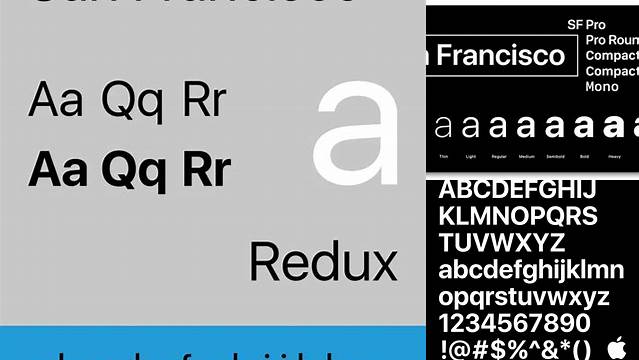
San Francisco Fonts For Architecture: A Comprehensive Guide
Welcome, typography enthusiasts and design aficionados! Let's dive into the fascinating world of San Francisco fonts, exploring their architectural influence and design nuances. We'll unravel the story behind these versatile typefaces, uncovering their origins, characteristics, and applications in architectural design. This guide will not only help you understand these popular fonts better but also equip you with the knowledge to use them effectively in your projects.
The Genesis of San Francisco Fonts: A Blend of Technology and Design
San Francisco fonts didn't just appear overnight; they're the product of meticulous design and technological innovation. Originally created by Apple, these fonts were designed with the user experience in mind, prioritizing readability across various screen sizes and resolutions. The design process involved a deep understanding of how people interact with digital interfaces, and the fonts had to be optimized for clarity on displays of all kinds, from the smallest smartwatches to large desktop monitors. The key was to create typefaces that were both functional and aesthetically pleasing. The fonts' design was not just about aesthetics; they were built to function within the specific constraints of digital displays. Early digital screens had lower resolutions than what we're accustomed to today, so the fonts had to be highly legible even at small sizes. Apple's design team focused on clean lines, open counters (the spaces inside letters like 'a' and 'e'), and a distinctive overall appearance that was instantly recognizable and pleasing to the eye. This careful attention to detail is a core part of the architectural approach to font design, where every element is considered in relation to the whole.
Let's take a peek into what made these fonts special! The design of San Francisco fonts reflects a minimalist yet modern aesthetic, drawing on the principles of both functionality and elegance. The fonts typically feature a geometric structure with clean lines and a balanced weight distribution, ensuring that they maintain legibility across diverse platforms and sizes. Unlike some more ornate or decorative typefaces, San Francisco fonts opt for simplicity, which allows them to seamlessly integrate with a wide range of design styles, including architectural presentations. The overall design philosophy favors a contemporary feel, which makes them a natural fit for modern architecture and design. This is especially true in the context of architectural visualization, where the fonts can be used to enhance the clarity and professionalism of presentations. The designers paid close attention to letterforms to make sure each character was visually harmonious with the others. The aim was to provide visual consistency, making it easier for users to read text quickly and accurately. This attention to detail is critical in the creation of effective design and also makes the fonts a great choice for architectural design documents, ensuring that they are both informative and easy to understand. The developers of San Francisco fonts put a premium on achieving flexibility while still having excellent legibility. They designed the fonts to be scalable, so they would look great on anything from tiny phone screens to large building signs. The fonts' ability to maintain readability in different sizes means they are very well-suited to architectural renderings, which need to be clear and easy to read, no matter how large or small they are.
The architectural influence is evident in the fonts' structure, which is carefully constructed like a building. The foundation is a grid system that helps place each letter. Similar to how architects use blueprints to plan a structure, this approach ensures that each character is built accurately and visually harmonious with the others. The careful design makes sure that they're visually consistent and legible, enhancing user experience across all applications. This precision and attention to detail are in perfect alignment with the architectural design's approach, which emphasizes precision and accuracy. When a designer chooses a font like San Francisco, it is a strategic choice that not only improves the visual look, but also helps to convey the message more effectively. The font's clean lines and the balanced weight make the design visually compatible with the architectural style and can make everything feel cohesive.
Exploring the Key Characteristics of San Francisco Fonts
So, what makes San Francisco fonts stand out? Let's break down their essential characteristics.
- Readability: The primary goal of San Francisco fonts is readability. The letters are designed to be clear and easily distinguishable, even at small sizes and on low-resolution screens. The design incorporates a lot of empty space, which improves legibility. Each letter is distinct to make sure that readers can quickly and easily recognize each character. This emphasis on readability is especially important in applications like user interfaces and architectural plans, where clarity is paramount.
- Geometric Structure: The fonts are based on a geometric structure, meaning their forms are derived from basic shapes like circles, squares, and triangles. This gives them a modern, clean look. This geometric approach not only looks good, but also helps in maintaining consistency and balance. This focus on geometry is a key factor in why the fonts are so visually appealing and why they are well-suited to architectural design, which also emphasizes geometric principles.
- Versatility: San Francisco fonts are versatile and work well in a variety of contexts. The fonts can be used for body text, headings, and UI elements and work on multiple platforms. This flexibility makes them very useful in different types of projects. In architectural design, where you often need both large headings and small annotations, this versatility is an important feature.
- Modern Aesthetic: The fonts project a modern, minimalist aesthetic that aligns with contemporary design trends. This design is perfect for modern tech-focused projects and architectural designs. The clean lines and simplicity of the font design make it perfect for architectural designs. This aesthetic makes the fonts timeless, as they can be used in a wide range of design scenarios.
By understanding these features, you can choose and use these fonts effectively. Let's find out how to use them in architectural design.
Applying San Francisco Fonts in Architectural Design
How can San Francisco fonts elevate architectural projects? Let's explore practical applications.
- Project Documentation: The fonts are perfect for creating project documents, such as plans, technical specifications, and presentations. The clean look ensures the documents are professional and easy to read. In architectural plans, the fonts can be used for dimensions, annotations, and labels, where clarity is key. In technical specs, the fonts help ensure that the information is clear and accessible to everyone involved. The consistency provided by the fonts makes the documents feel very polished.
- Digital Interfaces: They're also great for architectural firms' websites and digital presentations. Their readability makes them very popular in digital design. In website design, they ensure that the text is readable across all devices and screen sizes. Their ability to stay clear on screens of all sizes makes them essential for user interfaces of digital presentations. This also gives the architects the ability to communicate their work across several digital platforms.
Conclusion: Embracing the Versatility of San Francisco Fonts
In conclusion, San Francisco fonts are a great choice for architectural design and typography. They offer a blend of aesthetics and functionality that makes them perfect for a lot of design needs. The clarity, versatility, and modern design of these fonts make them a powerful tool for architectural projects. Whether it is for project documentation, digital interfaces, or even visual design, these fonts enhance the look and functionality of your design. Architects and designers can boost the look and effectiveness of their work by following the best practices. By adopting these fonts, you're not just picking a font; you're also picking a design approach that highlights clarity, professionalism, and modern aesthetics. The goal is to enhance the look and effectiveness of your projects. As design trends change, the relevance and value of these fonts in the design world will remain steadfast, making them a crucial tool for anyone in architecture or design.